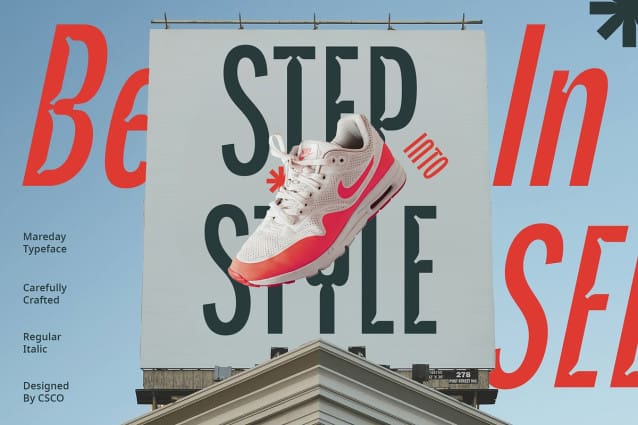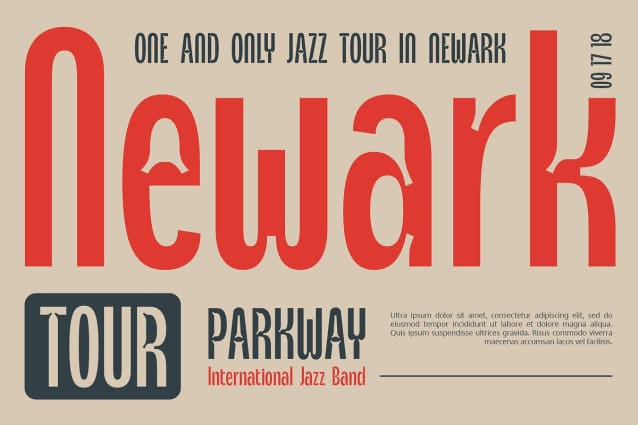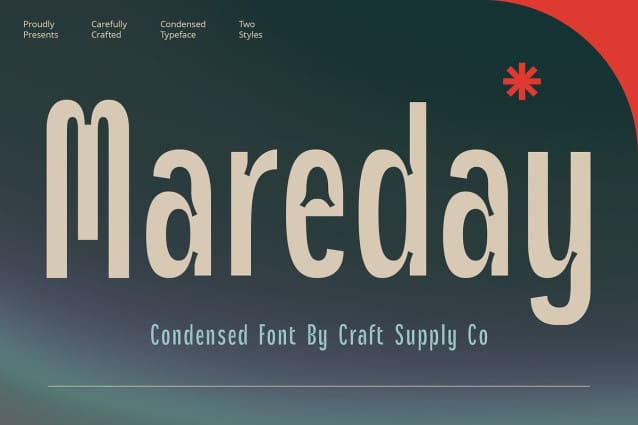
Mareday Font
Mareday Font – Inktrap Font is a display sans serif font featuring inktrap details for added character and charm. It combines the clean, modern look of a sans serif with the intricate details of inktrap, resulting in a font that stands out in any design.
With its condensed form, Mareday Font maximizes space efficiency without compromising on readability. The condensed design allows for more text to fit in smaller spaces, making it perfect for headlines, banners, and other display purposes where space is limited.
Experience the subtle elegance of Mareday Font’s low contrast design, perfect for sophisticated displays. The low contrast creates a smooth and balanced appearance, adding a touch of refinement to any design project.
Despite its condensed form, Mareday Font offers versatility for various design applications, from headlines to branding. Its clean lines and inktrap details make it suitable for a wide range of projects, including posters, packaging, logos, and more. Whether you’re creating a sleek corporate identity or a stylish editorial layout, MaredayFont provides the perfect balance of elegance and efficiency.